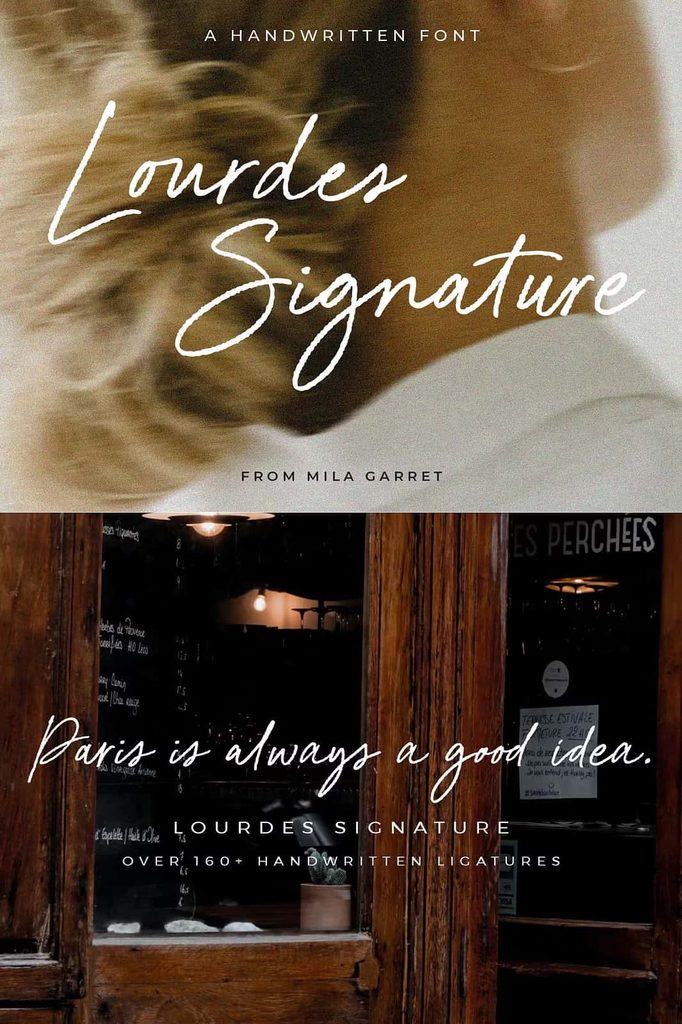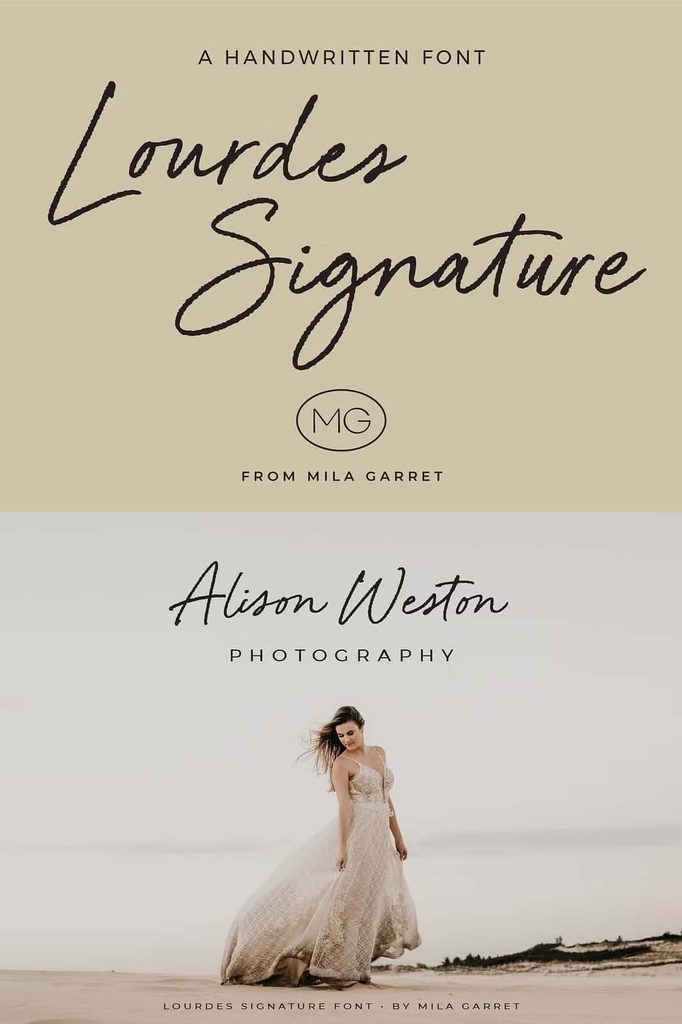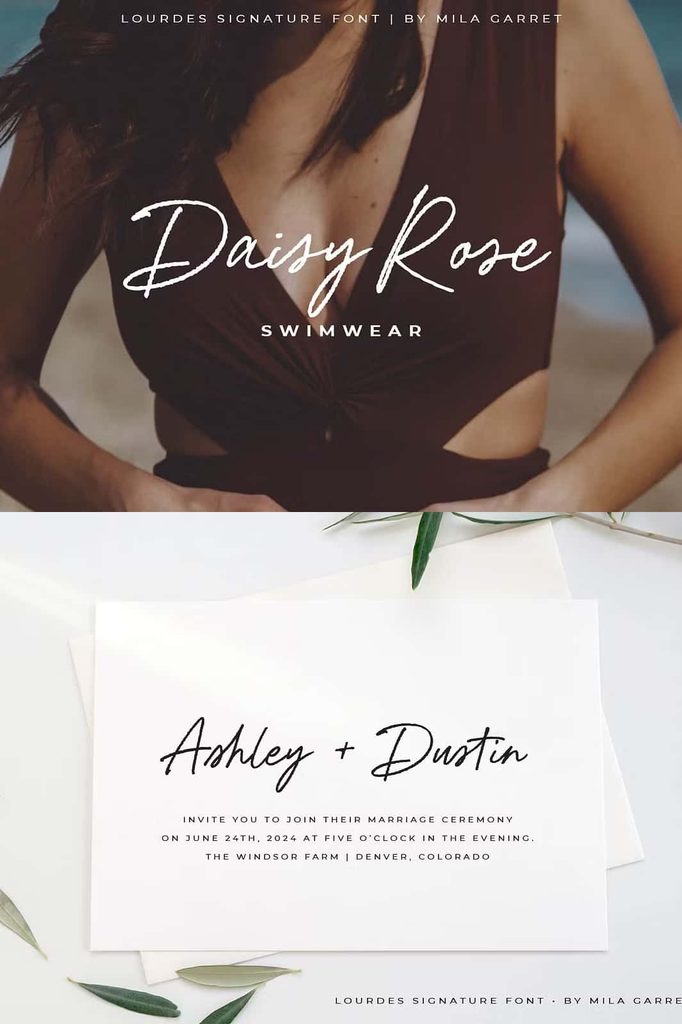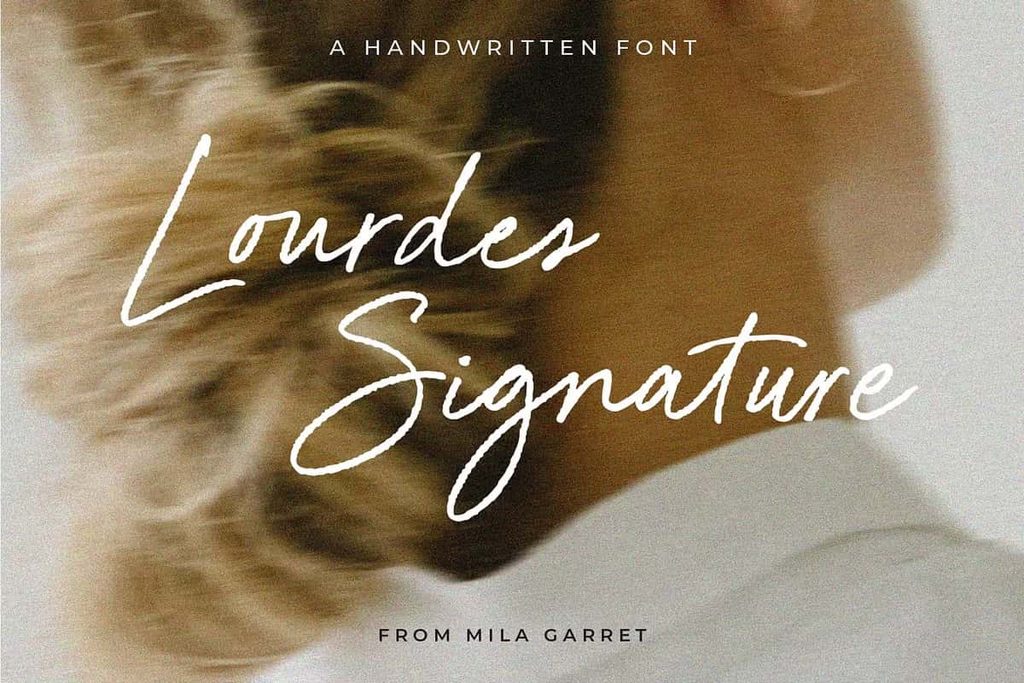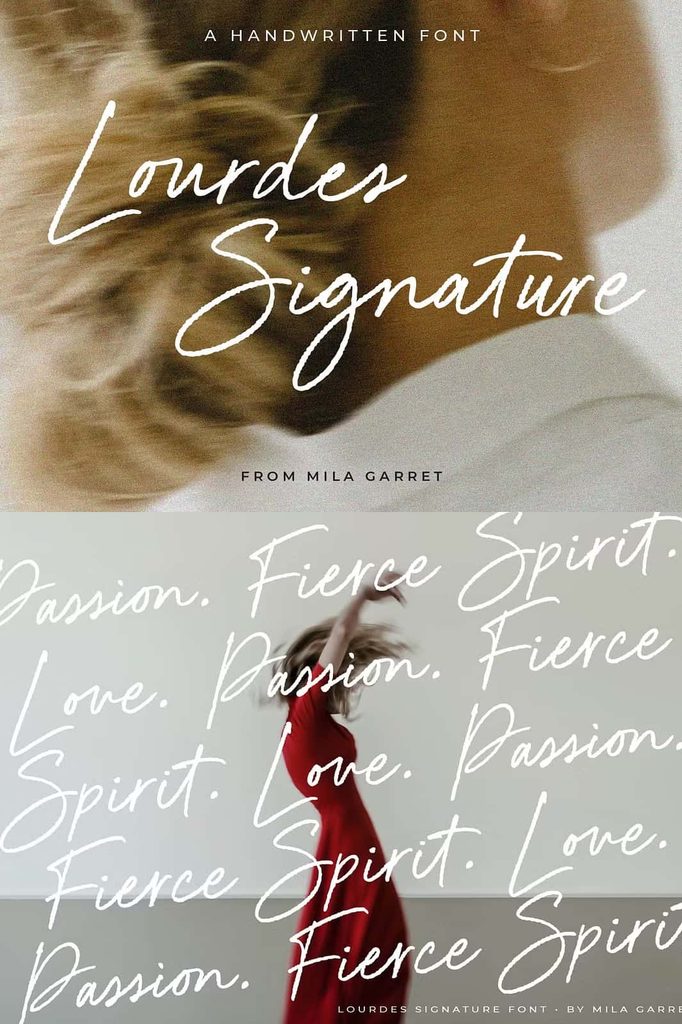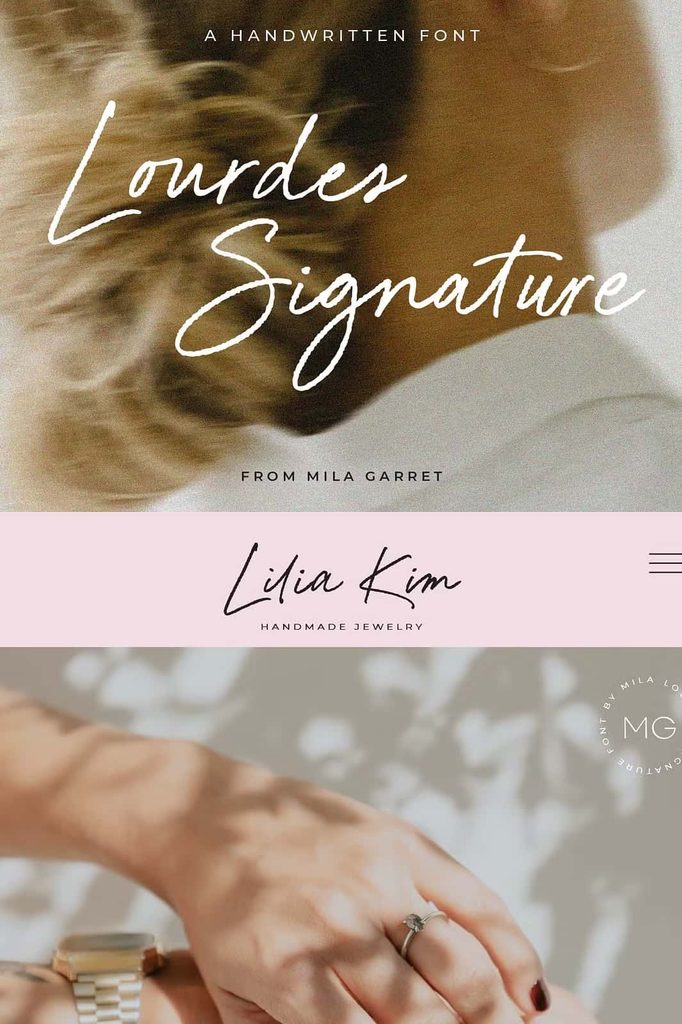
Lourdes Signature Font – Natural Handwritten Script with Authentic Character
Lourdes Signature is a beautifully crafted inky script font that captures the effortless charm of genuine handwriting. Its natural strokes, textured details, and flowing letterforms create an authentic handwritten appearance that feels personal, expressive, and modern. Rather than looking overly polished or mechanically constructed, Lourdes Signature brings the subtle imperfections of real pen-and-ink lettering into your designs.
Designed for creatives who want to add personality without overwhelming their layouts, Lourdes Signature works especially well when you need a simple yet distinctive typographic style. Its organic appearance helps brands communicate warmth, creativity, elegance, and individuality. Whether you create a minimalist logo, an editorial headline, a wedding invitation, a social media quote, or stylish product packaging, this script font gives your project a handcrafted finishing touch.
What Makes Lourdes Signature Special?
Lourdes Signature stands out through its natural handwritten construction and textured inky appearance. Every character contributes to the feeling of authentic penmanship, allowing you to create compositions that look intentionally written rather than digitally typed. The flowing shapes connect beautifully across words and help establish a relaxed visual rhythm.
The font also includes more than 160 ligatures. These special double- and triple-letter combinations replace standard letter sequences with carefully designed alternatives. By using these ligatures, you can create more natural connections between characters and achieve a lettering style that closely resembles genuine handwriting.
These alternate combinations add subtle variation throughout your text. As a result, repeated letters and common character combinations can appear less predictable, helping your typography feel more organic and authentic.
A Handwritten Style for Modern Design
The natural personality of Lourdes Signature makes it particularly effective for modern minimalist projects. Its handwritten character can soften clean layouts while still maintaining a refined and professional appearance. You can pair it with simple sans serif fonts, elegant serif families, or understated display typefaces to create balanced typography systems.
Use Lourdes Signature when you want your audience to feel a human connection with your design. Its inky texture suggests something written by hand, making it a strong choice for brands that want to appear approachable, creative, personal, or artisanal.
Natural Texture and Flow
The textured strokes give Lourdes Signature an authentic writing quality. Instead of relying on perfectly uniform lines, the design introduces subtle visual movement that mimics the behavior of ink on a writing surface. This quality helps headings, names, phrases, and short statements feel more expressive.
160+ Handwritten Ligatures
With more than 160 ligatures, Lourdes Signature offers plenty of opportunities to refine your typography. These special combinations can transform ordinary letter sequences into more convincing handwritten connections. Activate the appropriate OpenType features in compatible design software to explore the font’s alternate combinations and create a more natural result.
Perfect for Minimalist Logos
Lourdes Signature can create memorable logos without requiring complicated visual elements. Its distinctive handwriting immediately establishes a personal identity, making it useful for entrepreneurs, creative studios, lifestyle brands, boutique businesses, and independent makers.
For a minimalist logo, combine the script with generous spacing and a simple supporting typeface. The handwritten lettering can carry the personality of the brand while the accompanying typography maintains clarity and structure. This approach allows you to build a logo that feels sophisticated without becoming visually crowded.
Ideal for Editorial Design
Editorial designers can use Lourdes Signature to introduce contrast and personality into magazines, lookbooks, brochures, journals, and digital publications. Apply it to short headlines, pull quotes, section titles, captions, or decorative phrases to break up more structured typography.
Because the font has a strong handwritten personality, it works best when you use it selectively. Let Lourdes Signature highlight important phrases while pairing it with a highly readable typeface for longer paragraphs. This strategy creates hierarchy and keeps the overall layout comfortable to read.
Bring Personality to Branding Projects
Brand designers can use Lourdes Signature to create a warmer and more approachable visual identity. The handwritten style works particularly well for businesses that value creativity, craftsmanship, individuality, and personal service.
Use the font across brand marks, promotional graphics, social media artwork, packaging labels, business cards, thank-you cards, and other branded materials. Consistent use can help establish a recognizable visual voice while the textured lettering adds a handmade quality.
Lourdes Signature is more than a decorative script font. It is a practical creative tool for designers who want to communicate personality through authentic-looking handwriting. With its textured inky strokes and extensive ligature collection, it helps transform ordinary words into expressive visual elements that connect with audiences on a more personal level.